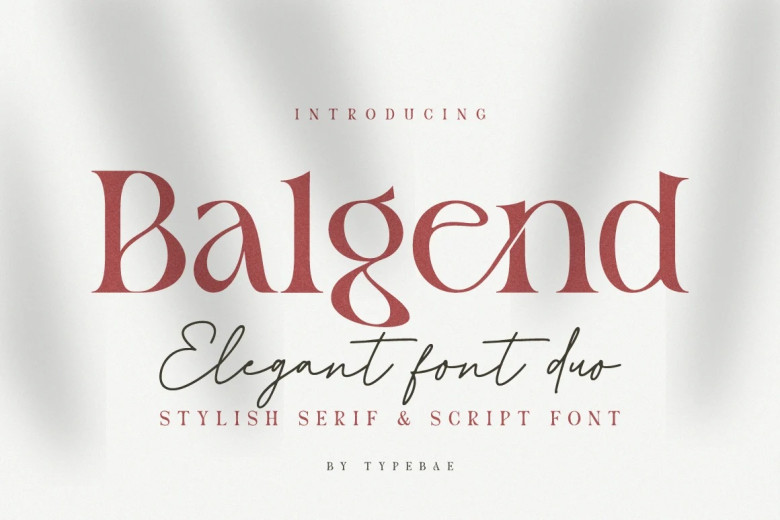
Balgen Font
Balgend is an expressive serif and script font which effortlessly marries creativity with elegance. With its delicate balance of classic serifs and expressive script, this font will bring timeless sophistication to your design projects.
Balgen Font Duo